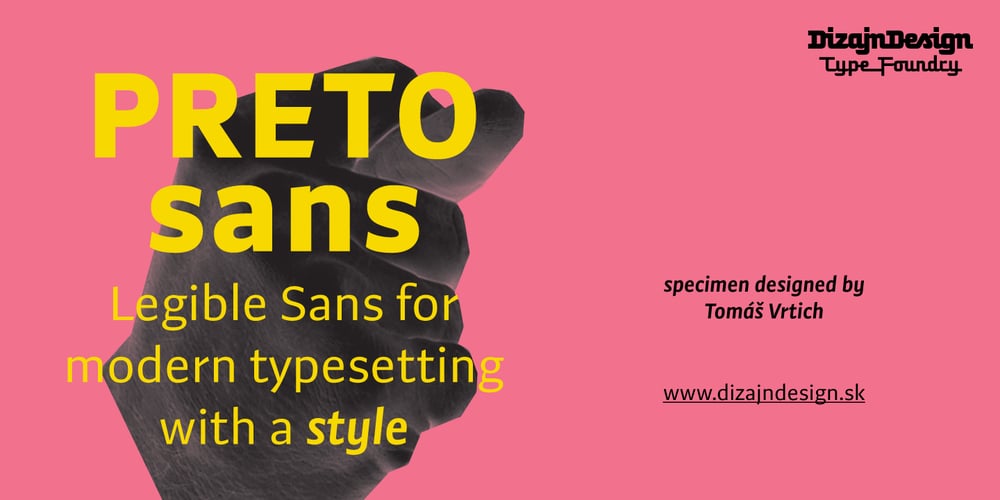
Preto Sans Font Family was designed by published by DizajnDesign. Preto Sans contains 8 styles and family package options. Preto is an extensive type family, which explores the function of serifs on readability and legibility. Preto consist of three subfamilies: Sans, Semi and Serif. Preto is designed for multilingual typesetting. All of the subfamilies have equal gray value but different texture which can be use to differentiate languages. Preto subfamilies have two text weights and two bold styles (Regular –> Bold, Medium –> Black). Every weight has a companion Italic style as well. Preto Sans The Sans version of Preto forms the basic skeleton of the family, it is decidedly simpler than the other styles (Semi and Serif). Although you can find many distinctive and unique elements in the details. The most visible elements are the tapered upper part of the letters. The capital letters have uniform widths achieving very different texture than traditional roman proportions. There are two different options for ligatures and alternative characters (J, Q, g, &) gives more variability for different languages.